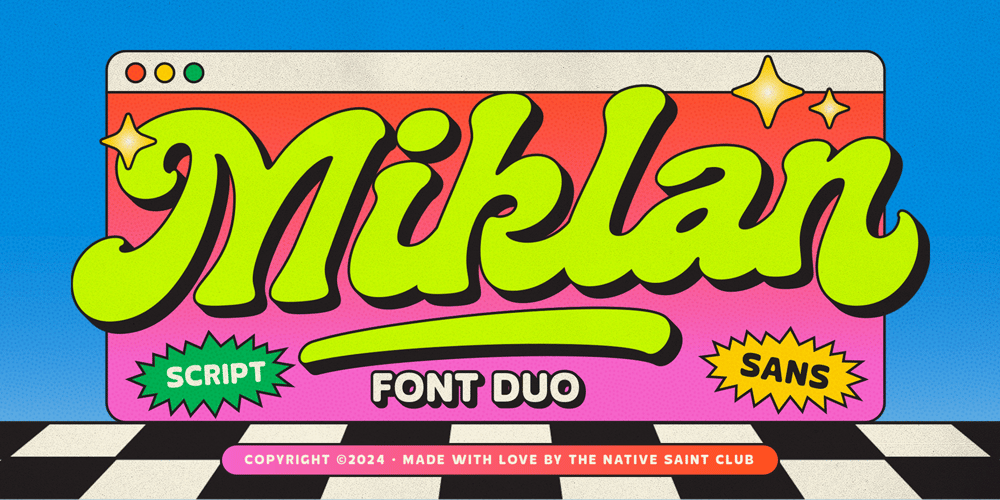
Miklan Duo Font Family was designed by Bagas Ferdiansah, Septianto Nugroho and published by The Native Saint Club. Miklan Duo contains 2 styles and family package options. TNSC Miklan- Introducing Miklan font duo, a super bold script combined with a rounded sans serif. Inspired by the timeless typography of 70s advertising posters, this combination of bold and clean sans serif is the perfect pairing to make your designs stand out with a retro touch. Perfect for anything from vintage-inspired logos to fun, standout headlines.